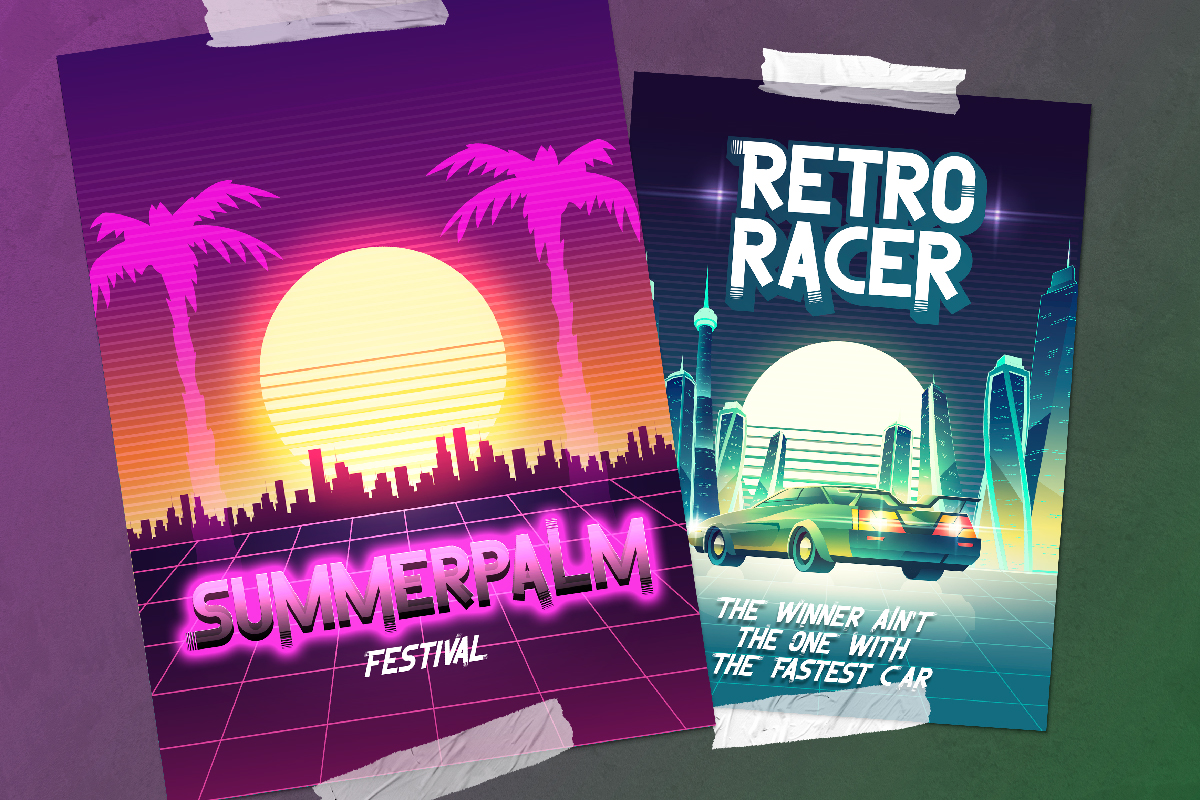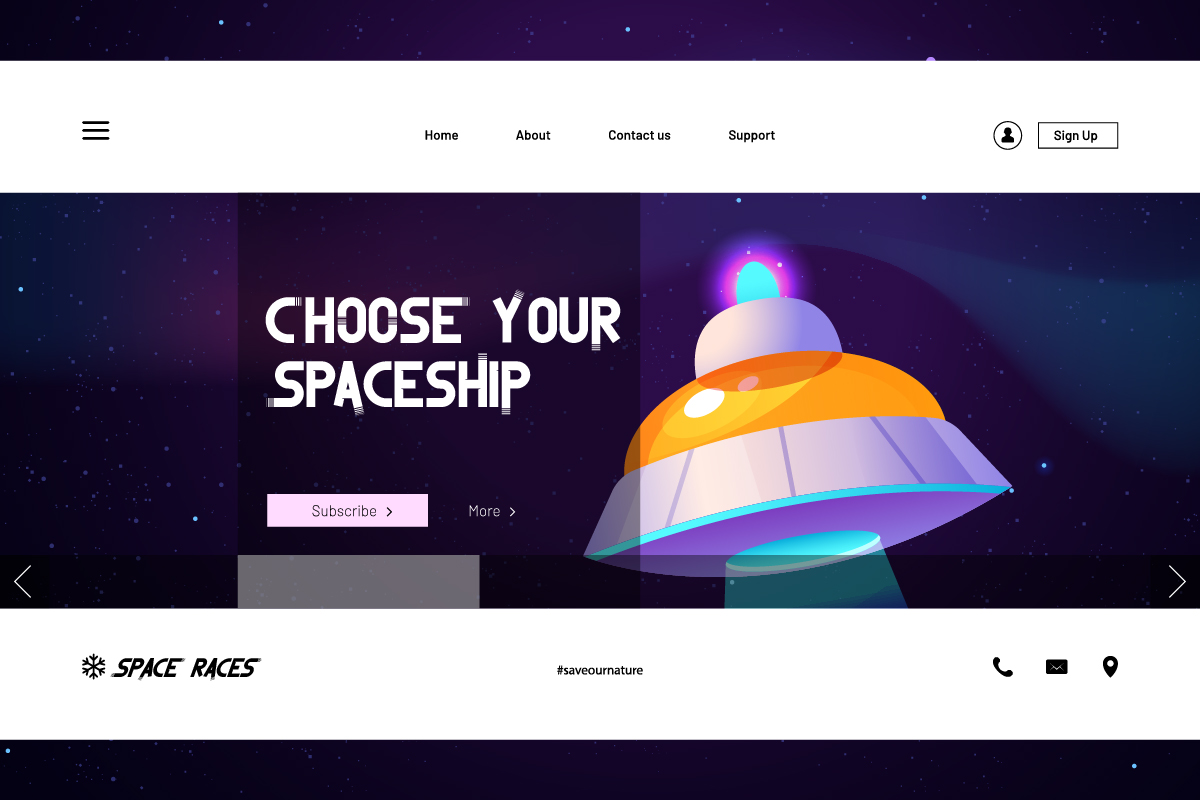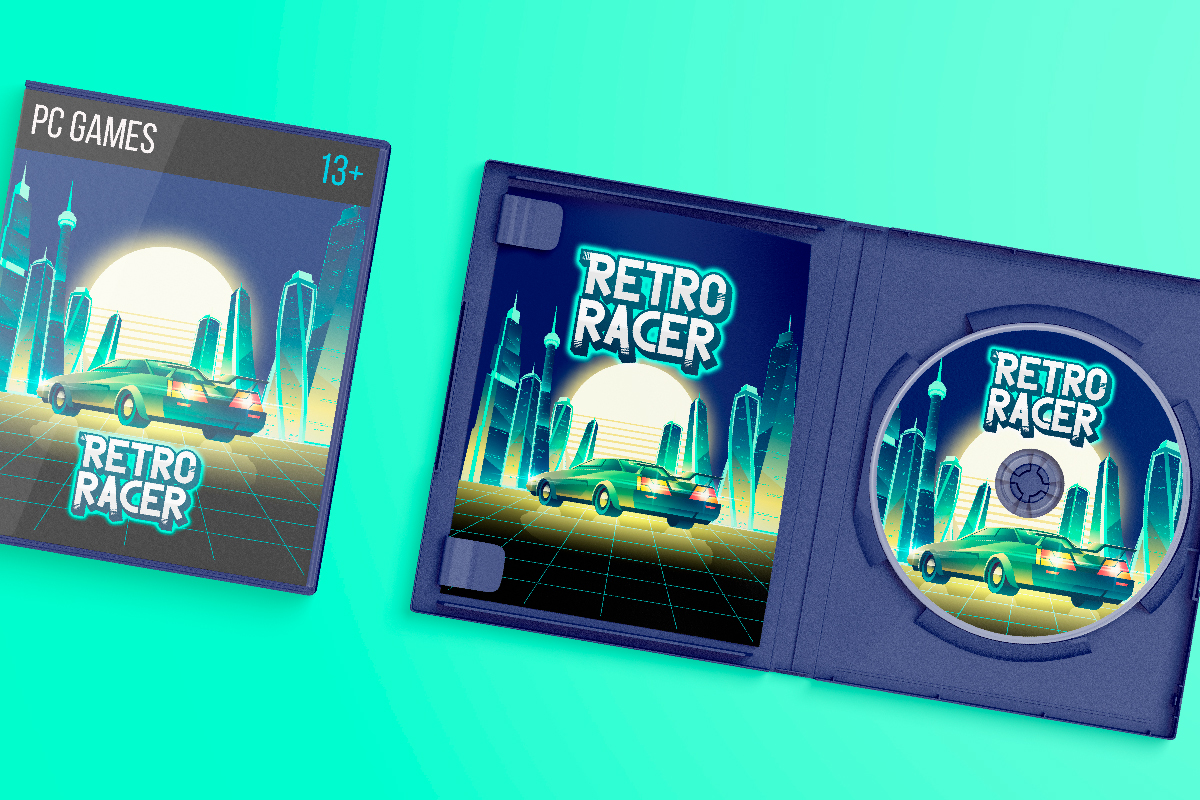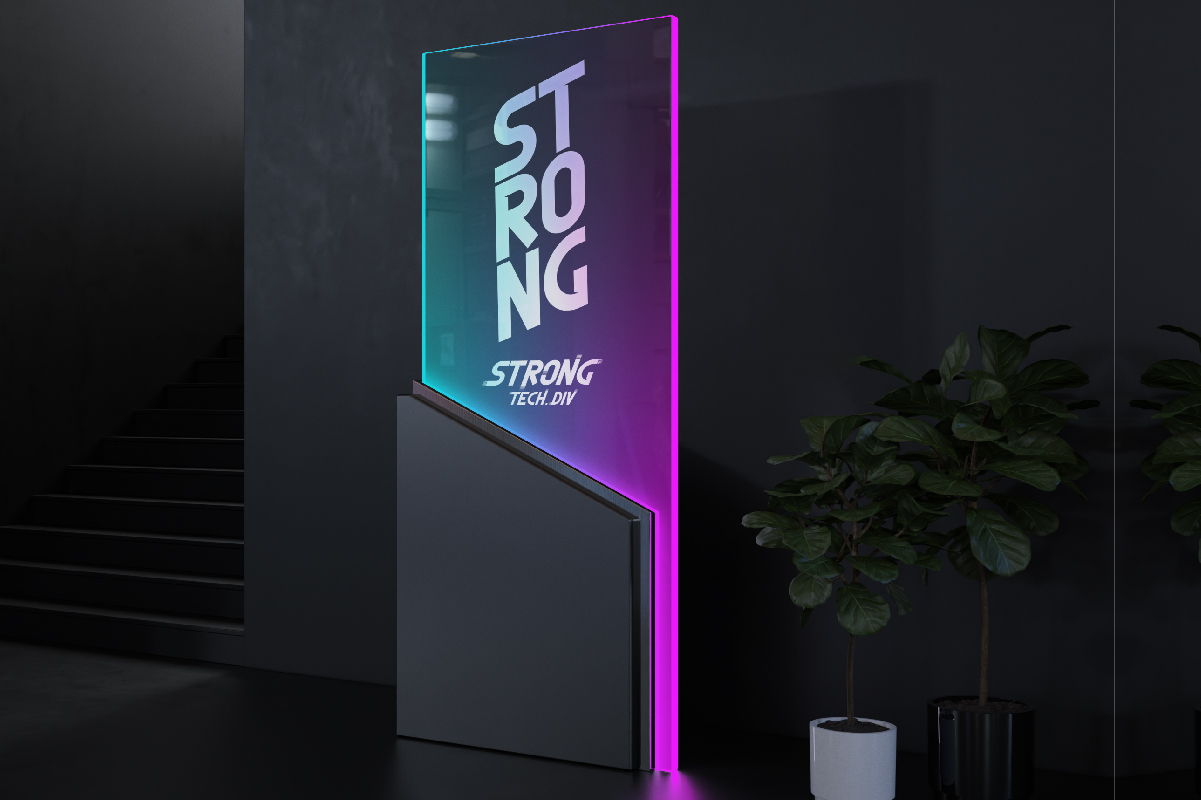
Street Racing Font
Street Racing Sans Serif Font
It’s a speedy techno display font with sporty style. This font is packed with two cool fonts, Regular and Italic. It will be suitable for many industries such as, artist, automotive, energy drink, event/festival, game, movie, music, race, space, sporty stuff, tech, and more!